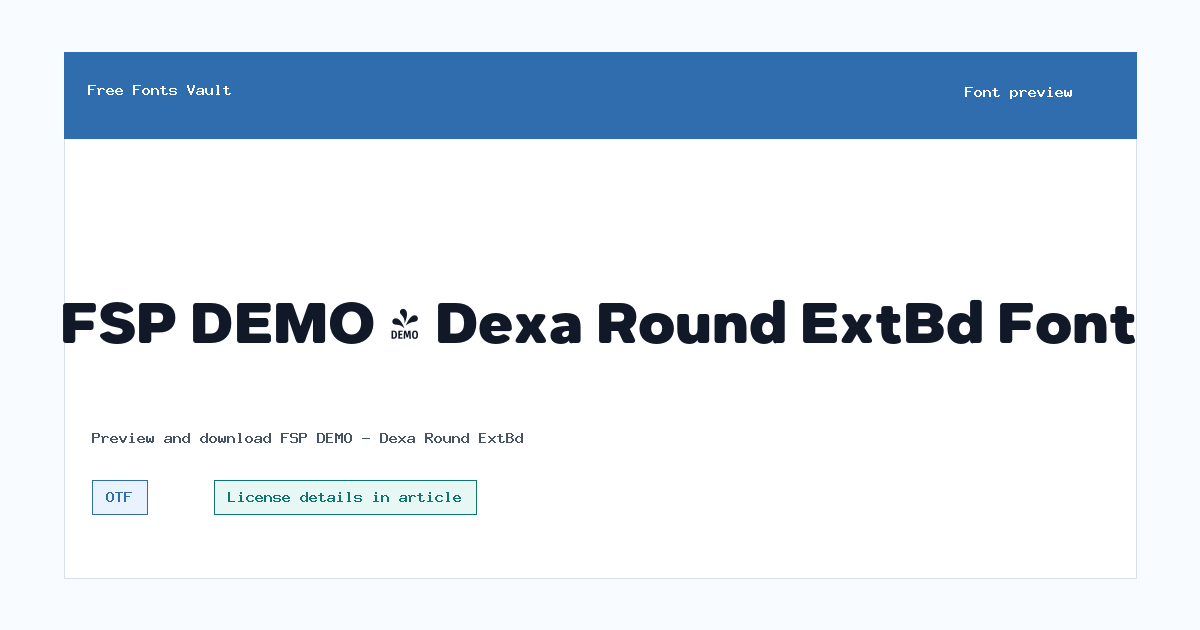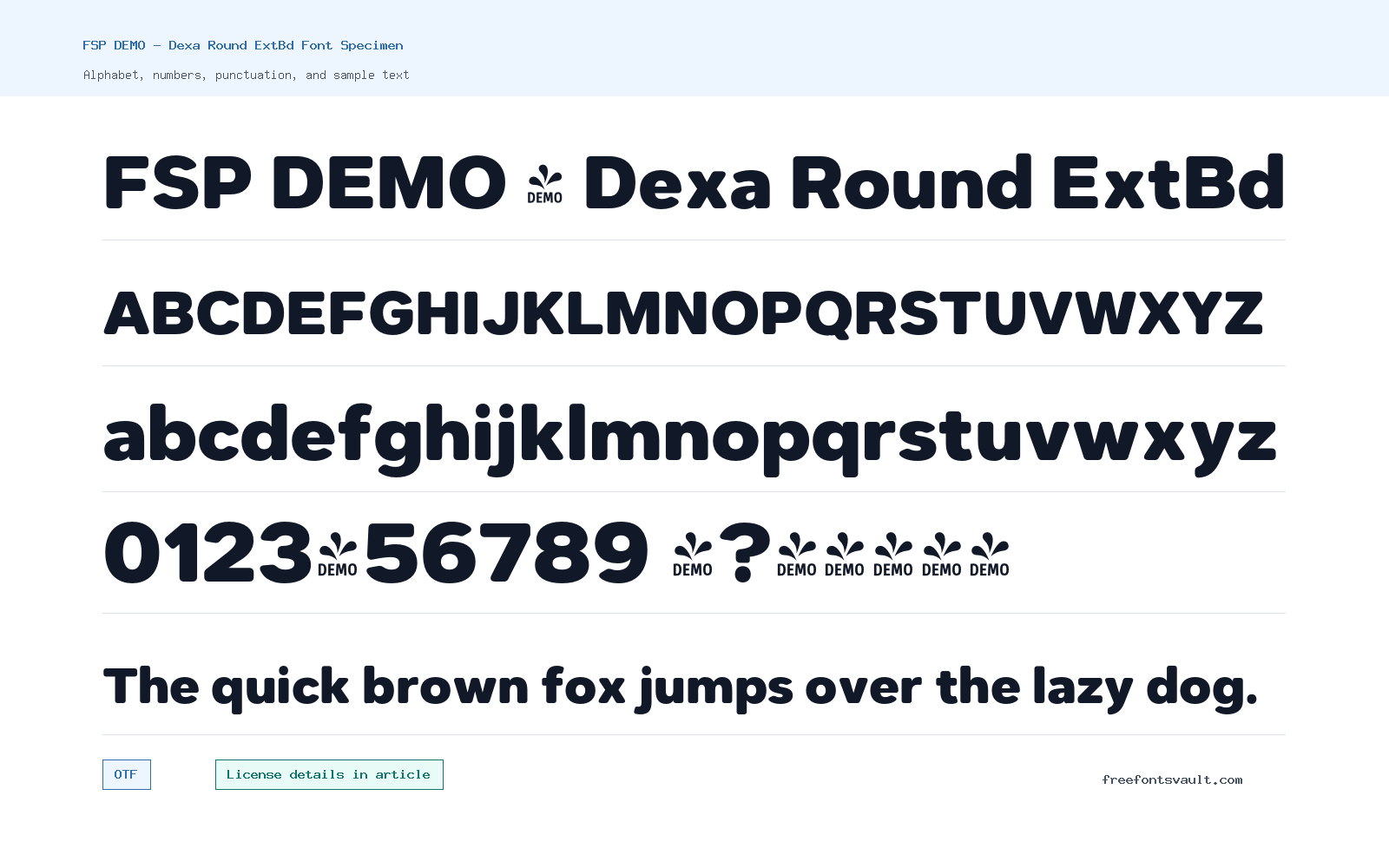
FSP DEMO - Dexa Round ExtBd
FSP DEMO – Dexa Round ExtBd font.
FSP DEMO – Dexa Round ExtBd is a heavy rounded display font for bold words that need impact without feeling too sharp. The extra-bold weight makes it useful for short titles, badges, and promotional graphics where a friendly but firm voice matters.
About FSP DEMO – Dexa Round ExtBd
This font uses thick rounded letterforms in a normal upright style. The 800 weight gives the alphabet a strong presence, while the curved construction keeps headlines softer than a square grotesque or narrow industrial face. It is best judged at larger sizes, where the spacing, terminals, punctuation, and heavy counters are easier to see before downloading.
Use the preview to test the real words you plan to set. Short brand lines, product labels, thumbnail titles, app banners, and poster headings are better tests than generic sample text, because a font this heavy can change mood quickly depending on letter combinations. If a phrase feels crowded, increase size, loosen tracking, or pair it with a simpler companion font for supporting copy.
- Extra-bold 800 weight for confident display typography.
- Rounded OTF construction that keeps heavy text softer and more approachable.
- Normal upright style, useful when italic or condensed alternatives are not needed.
- Works best in short, high-impact settings rather than paragraph-length reading.
- Large headings, title cards, and website hero lines.
- Product labels, stickers, badges, and promo graphics.
- Social thumbnails where heavy rounded text needs to stay readable.
- Brand direction mockups that need a soft geometric display voice.
- Short interface callouts, provided the letters remain clear at the chosen size.
Try the preview at the size you actually need. Extra-bold rounded letters can look excellent in a few words, but they can close up when set too small or too tightly. Check names, numbers, punctuation, and mixed-case phrases before deciding.
What kind of font is FSP DEMO – Dexa Round ExtBd?
It is a rounded extra-bold display font in OTF format, listed with a normal upright style and 800 weight.
Is this good for body text?
No. It is much better for short headings, badges, posters, labels, and large display text. Use a calmer font for paragraphs.
Test your real headline, numbers, punctuation, and tight letter pairs. The heavy rounded shape is most useful when the final text remains clear at display size.